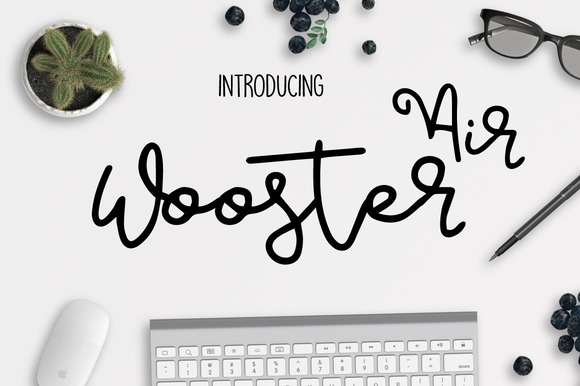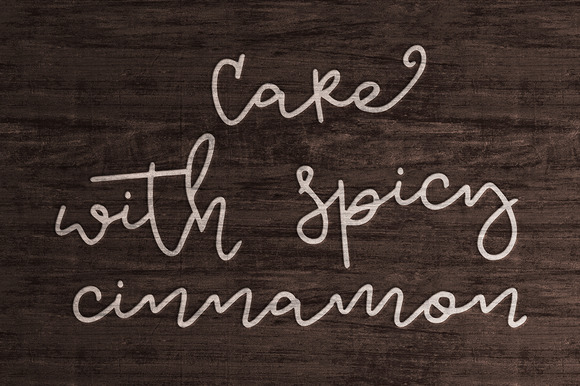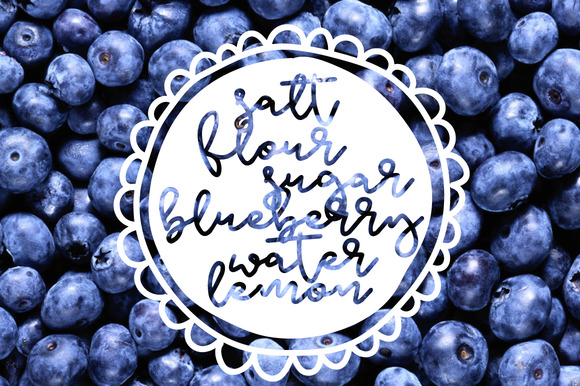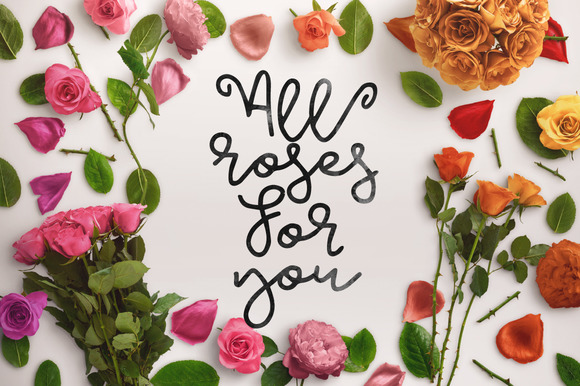
Air Wooster Font
About Air Wooster Font
Air Wooster is a hand-lettered and modern script font.
Can be used for various purposes such as headings, logos, wedding invitations, t-shirts, letterheads, signages, labels, news, posters, badges, and much more.